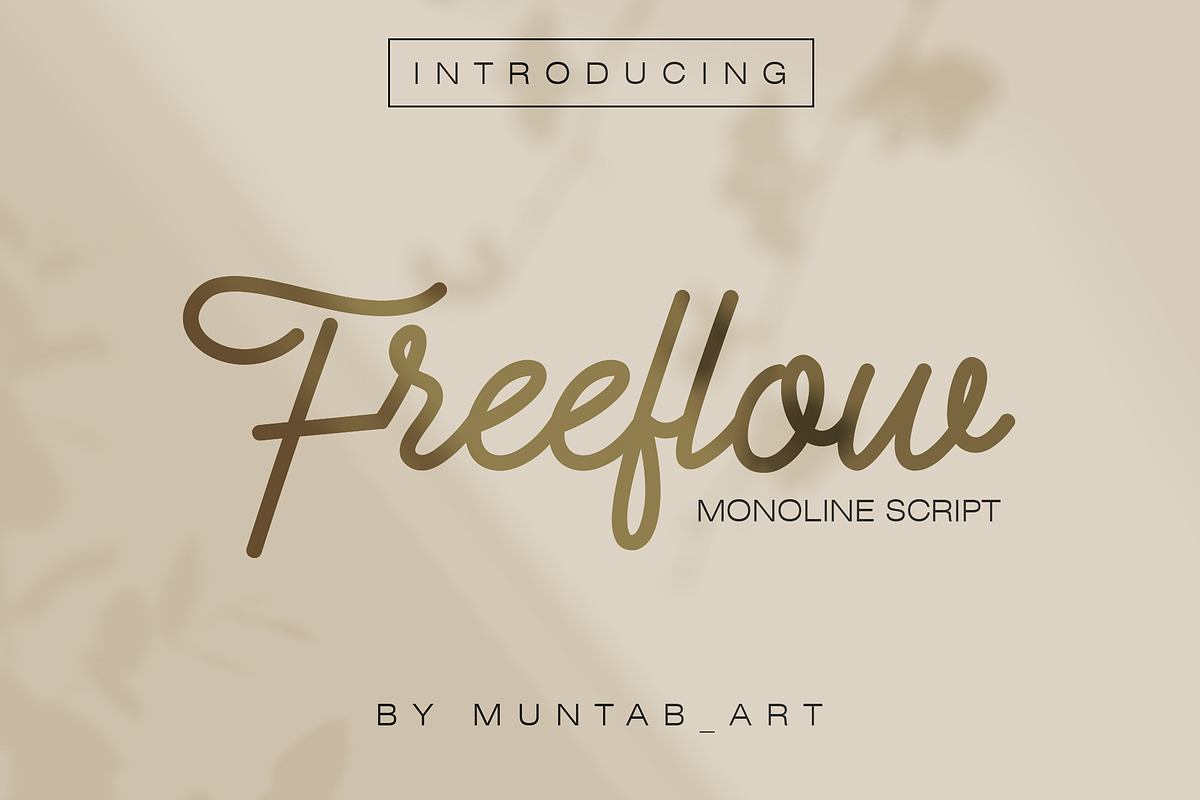
You must purchase this font for commercial use. However, you can download Freeflow Monoline Script Font Free Download for testing purposes. Freeflow is an elegant monoline script font that combines smooth, flowing letterforms with a minimalist design. Perfect for creating stylish logos, invitations, branding, social media content, and more, this font brings a modern, clean aesthetic with a personal, handwritten touch.
The monoline design of Freeflow adds sophistication and readability, making it ideal for a wide range of creative projects. Whether you're designing for a chic brand, a personal project, or a creative event, this font offers both beauty and clarity to your typography.